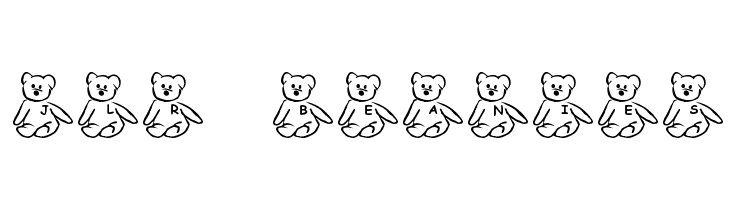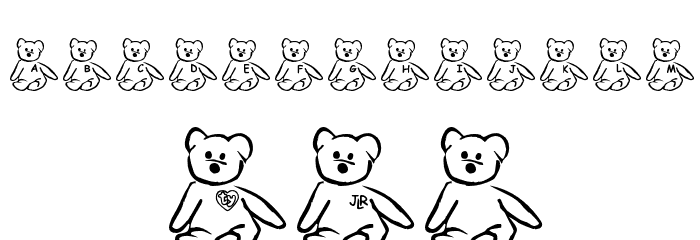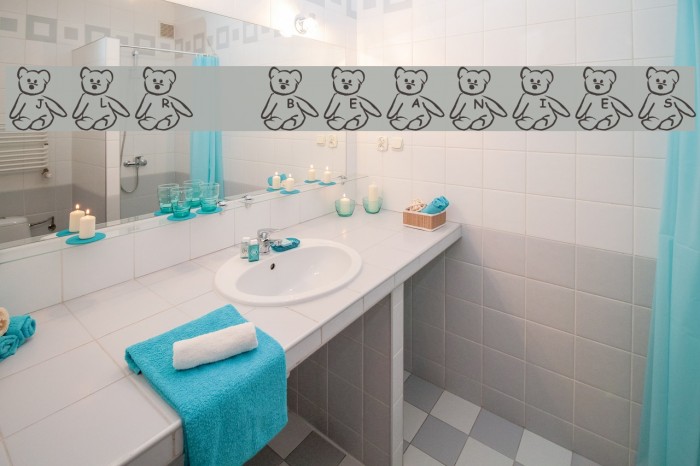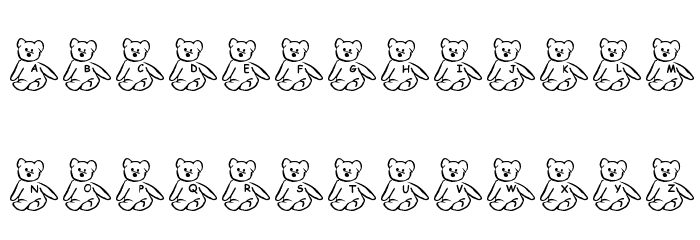
JLR Beanies Font
JLR Beanies Description
This is not a valid font. The image consists of teddy bear illustrations with letters on their chests, rather than a traditional font set. Each bear represents a different character, but they do not form a cohesive typographic style suitable for text design.
The image contains teddy bear illustrations with letters, not a font from Uncategorized fonts.
- Proposed Projects: This is not applicable as the image does not depict a valid font.
- Bold: Unknown
- Italic: Unknown
- Width:
- Character Spacing: Unknown
- Contrast:
- Overall Style: Illustrative
- Use Case: N/A
- Is Fixed Pitch: Yes